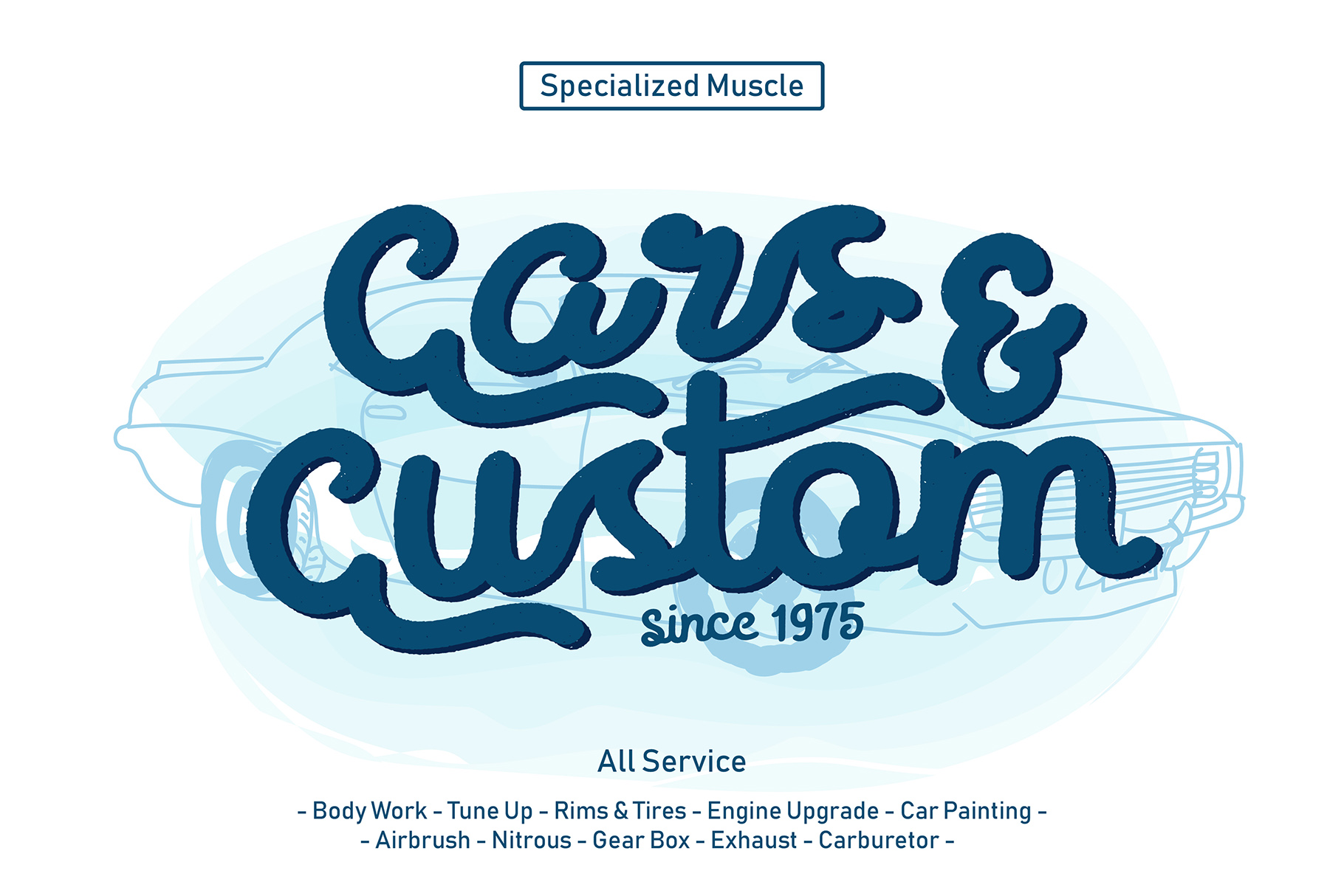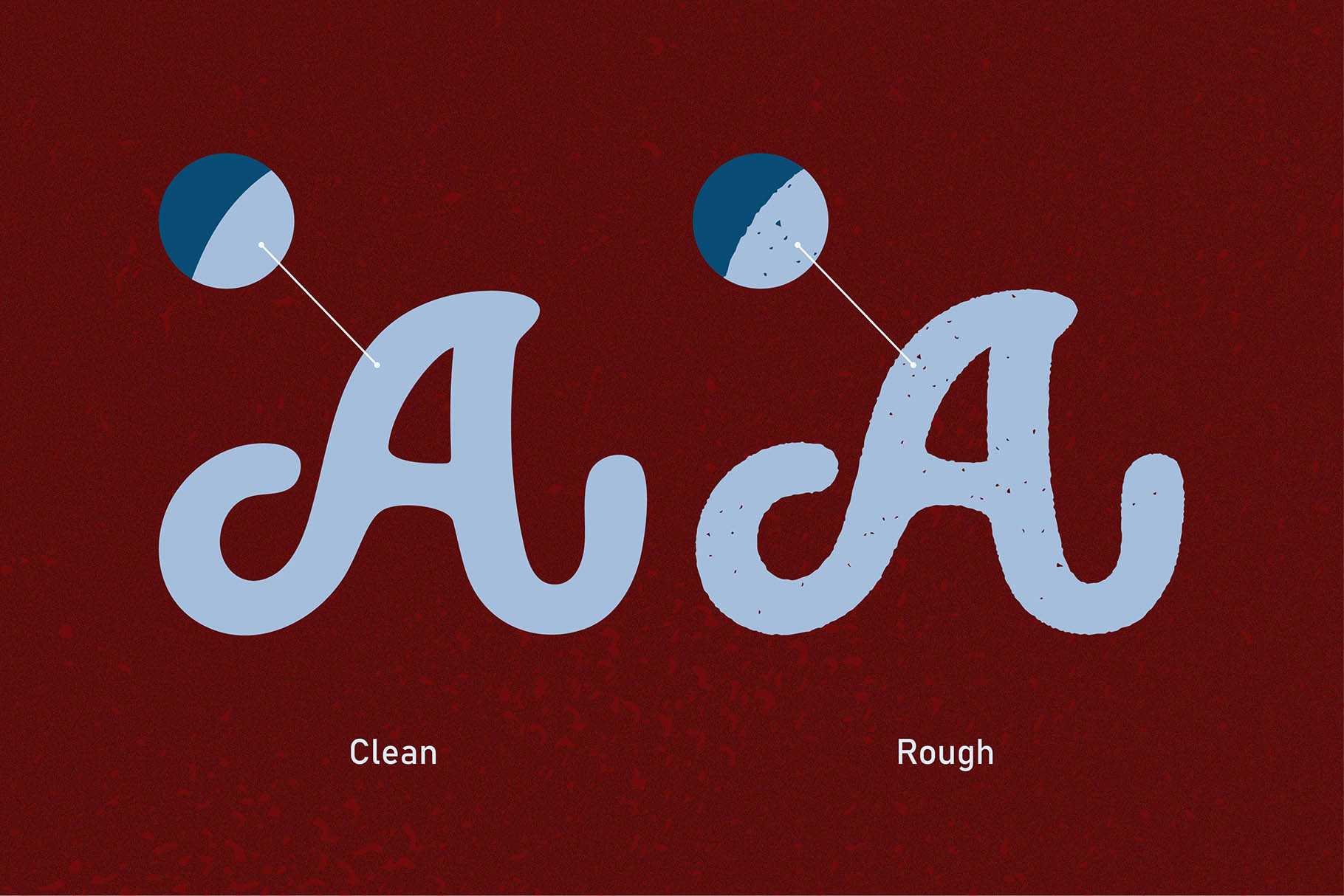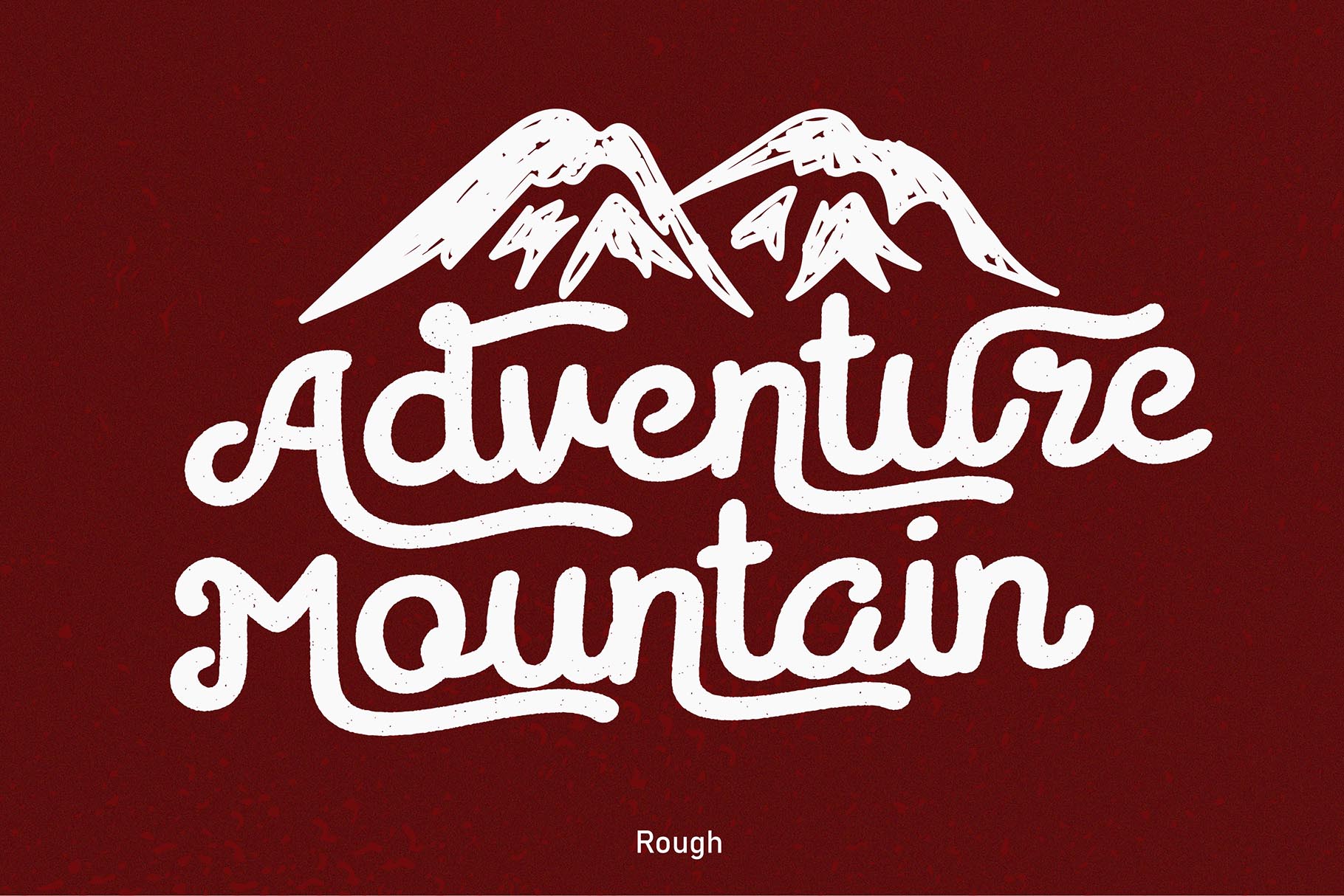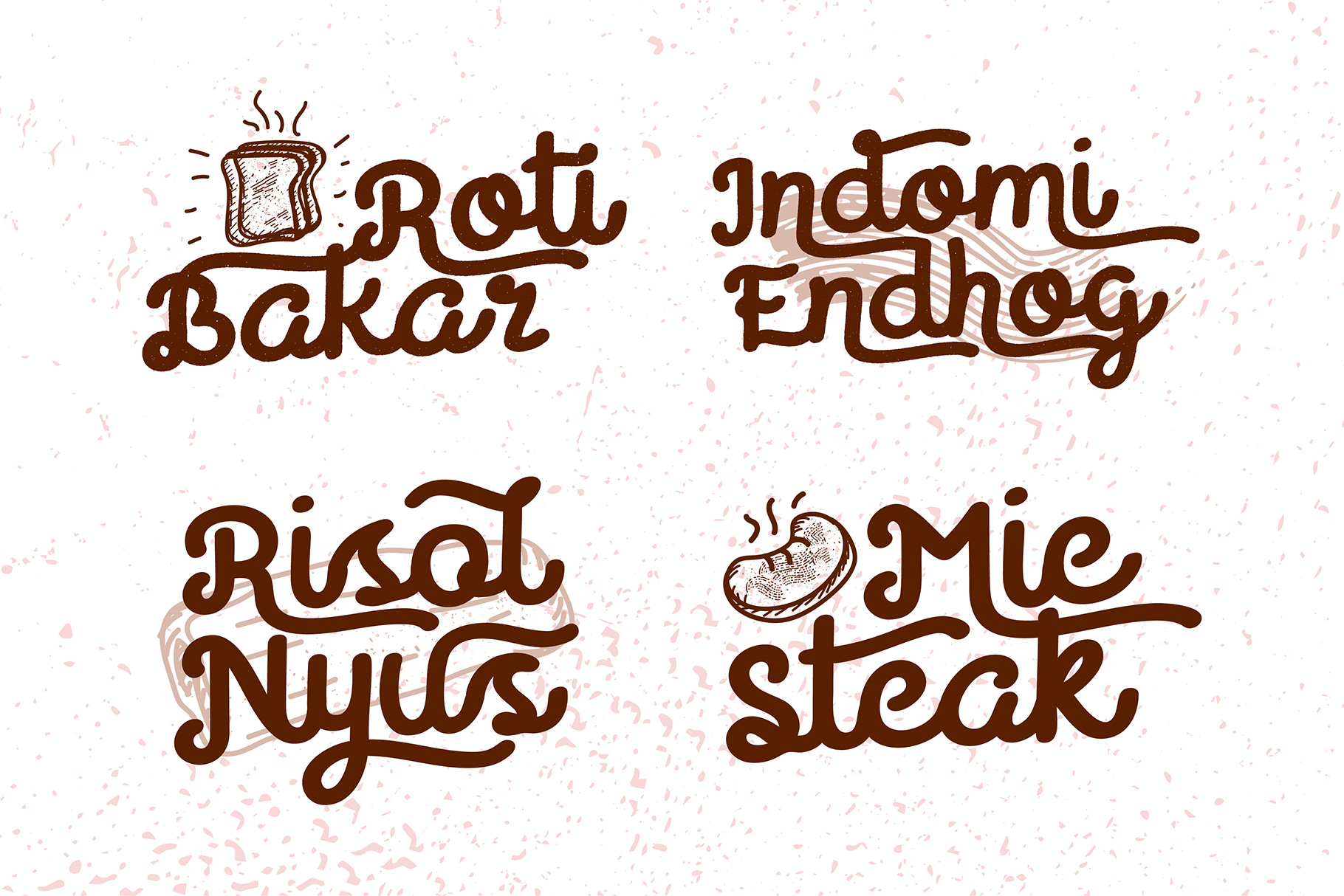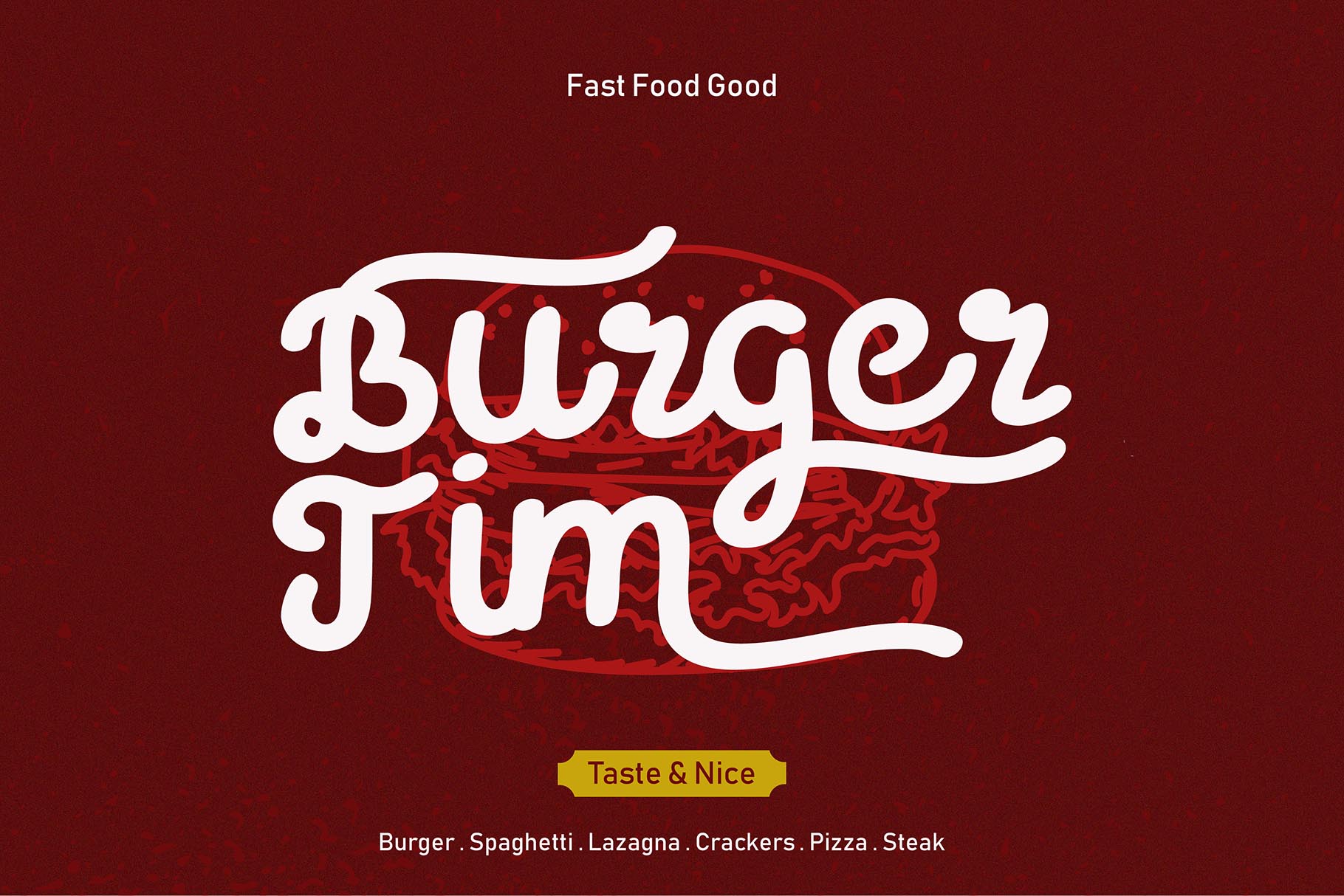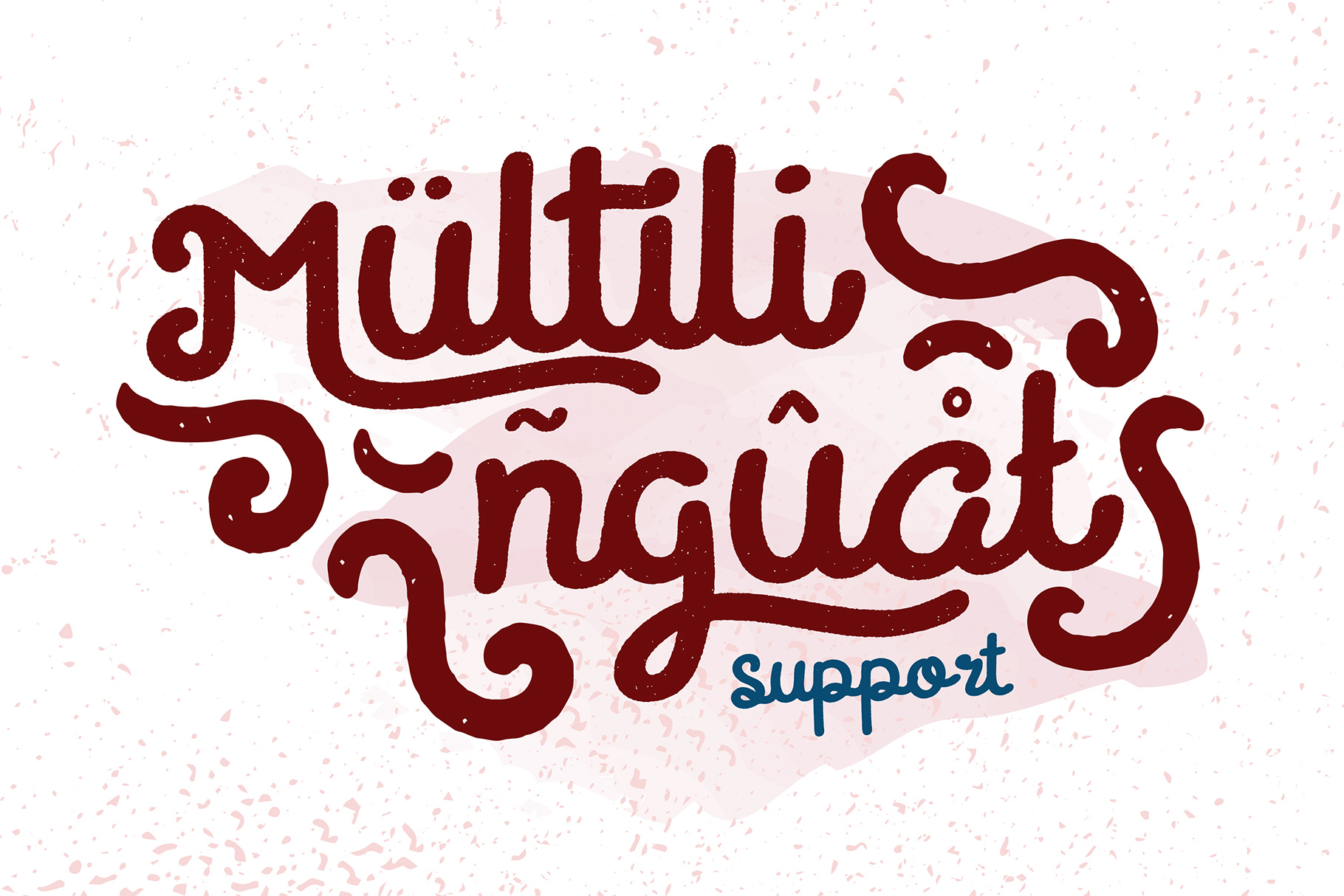
Discover the Charm of Believer Font: A Gorgeous Hand-Lettered Typeface
Are you a designer or crafter looking for a unique and captivating font to elevate your projects? Look no further than Believer Font, a stunning hand-lettered typeface that exudes an intriguing organic appeal. With its versatility and charm, Believer Font is perfect for a wide range of project types and styles, from modern and trendy to vintage and classic.
The Characteristics of Believer Font
Believer Font is a beautifully crafted hand-lettered font that boasts a distinctive, organic feel. Its unique characteristics make it stand out from other fonts, giving it a personality that’s hard to ignore. Here are some of the key features that make Believer Font so special:
- Hand-lettered charm: Believer Font is meticulously hand-lettered, giving it a personal and human touch that’s perfect for projects that require a personal and emotive feel.
- Organic appeal: The font’s organic shape and fluid lines create a sense of movement and energy, making it perfect for projects that require a dynamic and lively feel.
- Modern and vintage appeal: Believer Font seamlessly blends modern and vintage elements, making it suitable for a wide range of project types and styles.
- Highly legible: Despite its unique and artistic feel, Believer Font remains highly legible, making it perfect for use in body text, headings, and titles.
Uses for Believer Font
Believer Font is an incredibly versatile typeface that can be used in a wide range of projects, including:
- Branding and logos: Believer Font’s unique charm and personality make it perfect for creating memorable and impactful brand identities.
- Headings and titles: The font’s bold and eye-catching feel makes it ideal for use in headings, titles, and subtitles.
- Invitations and announcements: Believer Font’s elegant and sophisticated feel makes it perfect for use in invitations, announcements, and other formal events.
- Packaging and labels: The font’s modern and vintage appeal makes it suitable for use in packaging and labels for a wide range of products.
- Digital and print media: Believer Font can be used in a variety of digital and print media, including magazines, blogs, and social media graphics.
Why Choose Believer Font?
With so many fonts available, why choose Believer Font? Here are just a few reasons why Believer Font stands out from the crowd:
- Unique and distinctive: Believer Font’s hand-lettered charm and organic appeal make it a truly unique and distinctive typeface.
- High-quality design: The font is meticulously designed to ensure that it looks great in any context.
- Versatile: The font’s versatility makes it suitable for a wide range of project types and styles.
Tips for Using Believer Font
Here are a few tips for getting the most out of Believer Font:
- Experiment with different sizes and colors: Believer Font looks great in a variety of sizes and colors, so don’t be afraid to experiment and find the perfect combination for your project.
- Pair with other fonts: Believer Font pairs well with a range of other fonts, so try combining it with other typefaces to create a unique and interesting look.
- Use it sparingly: While Believer Font is a beautiful font, it can be overwhelming if used too much. Use it sparingly to create a sense of drama and impact.
Believer Font is a stunning hand-lettered typeface that offers a unique and captivating organic appeal. With its versatility, charm, and high-quality design, it’s perfect for a wide range of project types and styles. Whether you’re a designer or crafter looking for a font that will elevate your projects, Believer Font is definitely worth checking out.